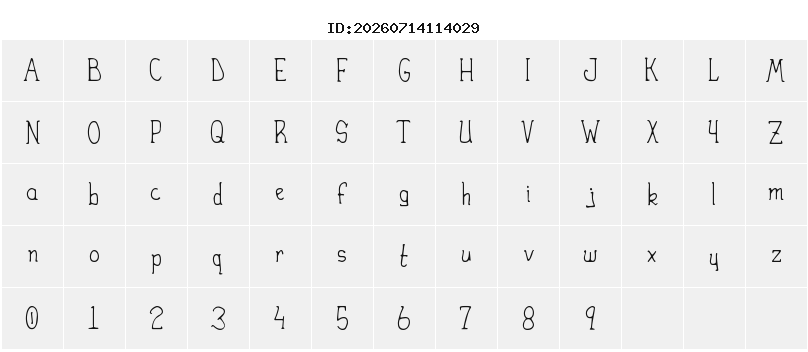
• Font Name: Heirany Slight
• Full Font Name: Heirany Slight
• Designer: S. John Ross
About Heirany Slight.ttf
Heirany Slight.ttf is a modern, elegant sans-serif font designed for ultimate readability and visual harmony. Perfect for branding, headlines, web design, and print materials.